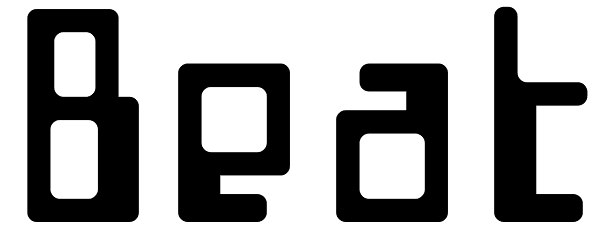
Beat
Beat is a quirky OCR-inspired face with a rounded, retro-electronic feel. All of the stem weights were drawn at random, but the ensuing chaos works amazingly well.